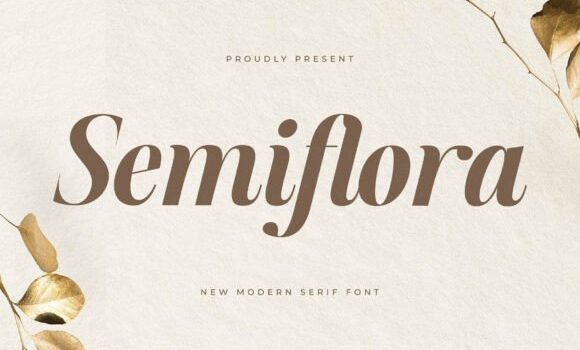
semiflora
Semiflora Font – Free Download Introduction to Semiflora Font Proudly present Semiflora Typeface , created by Storytype, A serif modern and classic typeface that has own unique style & modern look. 📸 Preview Gallery 6 images 📌 Product Name Semiflora